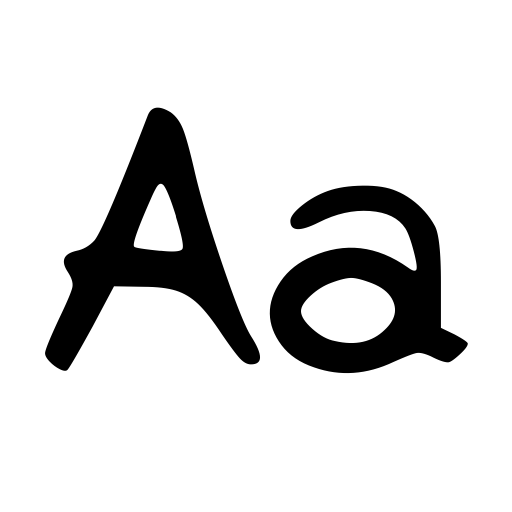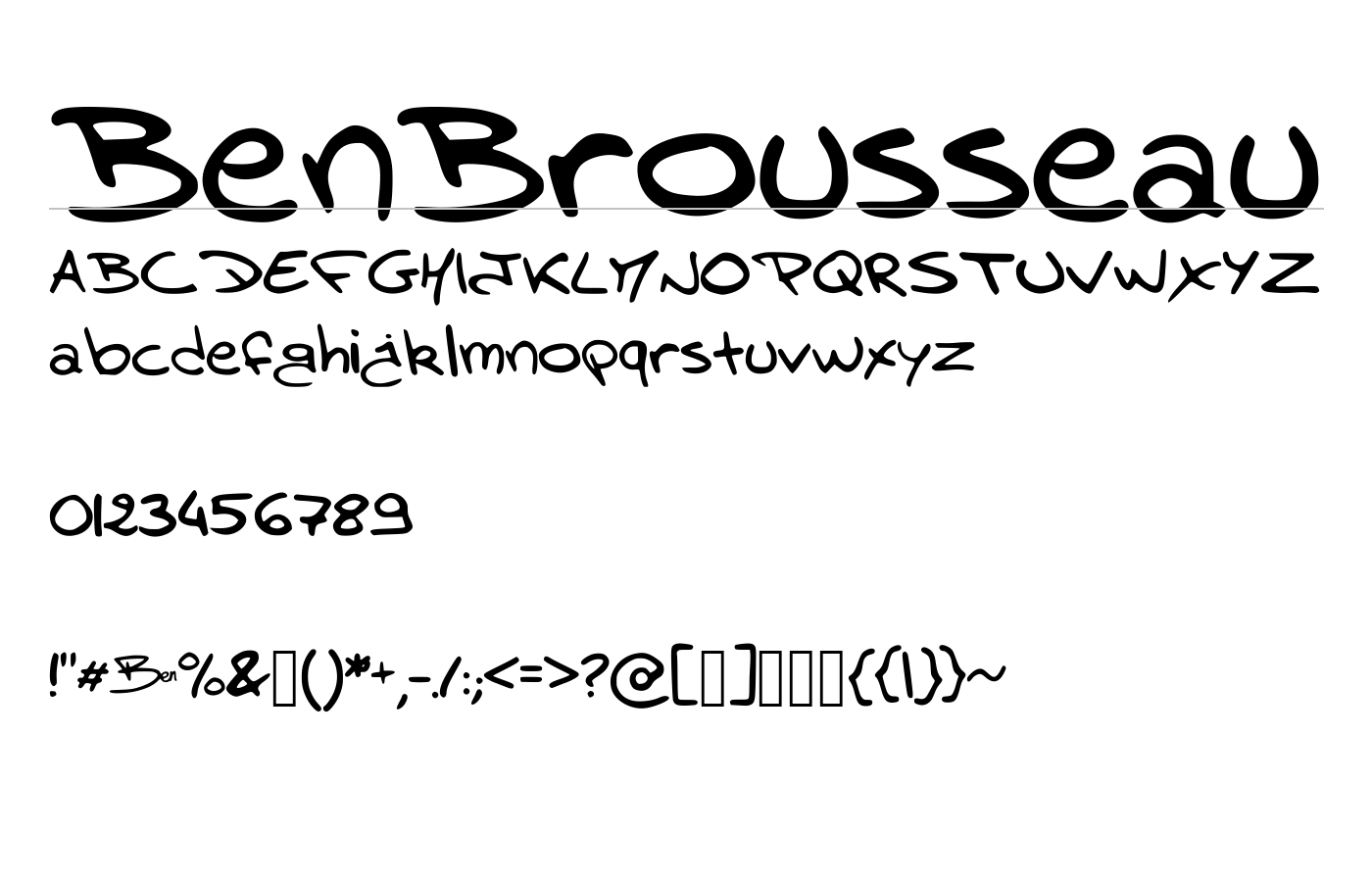
BenBrousseau is a playful and casual handwritten sans serif font characterized by its irregular, lively letterforms and moderate x-height. It features smooth, rounded strokes with a slightly quirky character, making it feel friendly and approachable. This font works best for informal designs, children's materials, creative projects, and branding that aims to convey warmth and personality.
BenBrousseau Font
About BenBrousseau Font